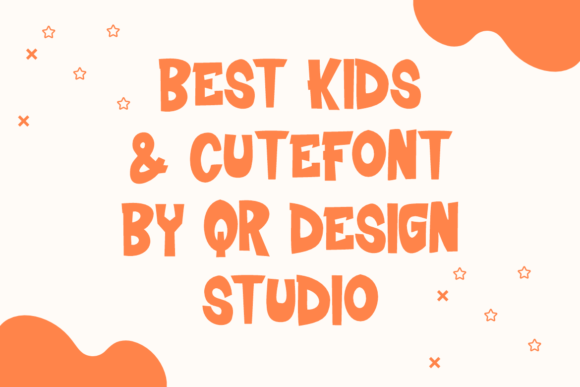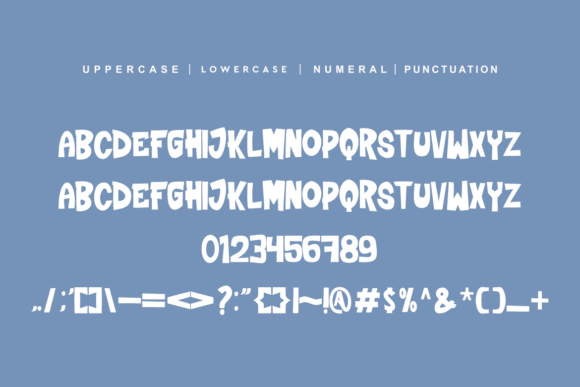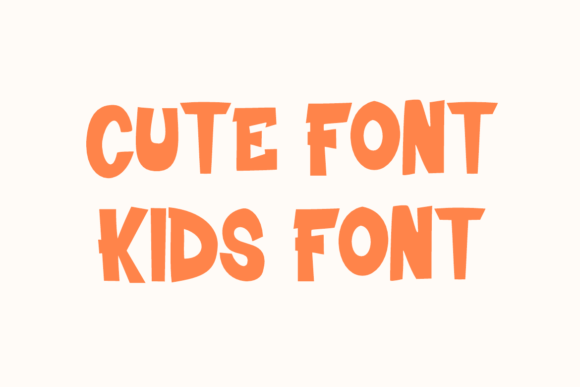
Introducing Cardin Namila Font: The Ultimate Choice for Playful Designs
Are you looking for a font that can add a touch of playfulness and authenticity to your designs? Look no further than the Cardin Namila font! This cute and colorful display font is perfect for any children’s activity or school project, and is sure to make your designs come alive.
What is Cardin Namila Font?
Cardin Namila is a chunky lettered font that is designed to bring a sense of fun and playfulness to your designs. With its bold and colorful letters, this font is sure to grab attention and add a touch of personality to any project. Whether you’re working on a children’s book, a school project, or a craft design, Cardin Namila is the perfect choice.
Key Features of Cardin Namila Font
So what makes Cardin Namila font so special? Here are just a few of its key features:
- Cute and Colorful: Cardin Namila font is a vibrant and playful font that is sure to add a pop of color to your designs.
- Chunky Lettering: The bold and chunky lettering of Cardin Namila font makes it perfect for display purposes, such as titles, headings, and captions.
- Playful and Authentic: This font embodies a sense of playfulness and authenticity that is sure to resonate with children and adults alike.
- Versatile: Cardin Namila font can be used for a wide range of design projects, from children’s books and school projects to craft designs and more.
Uses for Cardin Namila Font
So what can you use Cardin Namila font for? The possibilities are endless! Here are just a few ideas to get you started:
- Children’s Books: Add a touch of playfulness to your children’s book with Cardin Namila font. Use it for titles, headings, and captions to bring your story to life.
- School Projects: Make your school project stand out with Cardin Namila font. Use it for posters, presentations, and reports to add a touch of personality.
- Craft Designs: Add a touch of whimsy to your craft designs with Cardin Namila font. Use it for titles, labels, and tags to make your crafts truly special.
- Party Decorations: Use Cardin Namila font to create fun and playful party decorations, such as banners, invitations, and centerpieces.
Tips for Using Cardin Namila Font
Here are a few tips for getting the most out of Cardin Namila font:
- Use it sparingly: While Cardin Namila font is playful and fun, it can be overwhelming if used too much. Use it sparingly to add a touch of personality to your designs.
- Experiment with colors: Cardin Namila font comes in a range of colors, so don’t be afraid to experiment and find the perfect color for your design.
- Pair it with other fonts: Cardin Namila font pairs well with other fonts, such as serif and sans-serif fonts. Experiment with different pairings to find the perfect combination.
In conclusion, Cardin Namila font is a cute and colorful display font that is perfect for any children’s activity or school project. With its chunky lettering and playful personality, this font is sure to add a touch of fun and authenticity to your designs. Whether you’re a designer, crafter, or educator, Cardin Namila font is a great choice for any project. So why not give it a try and see how it can bring your designs to life?